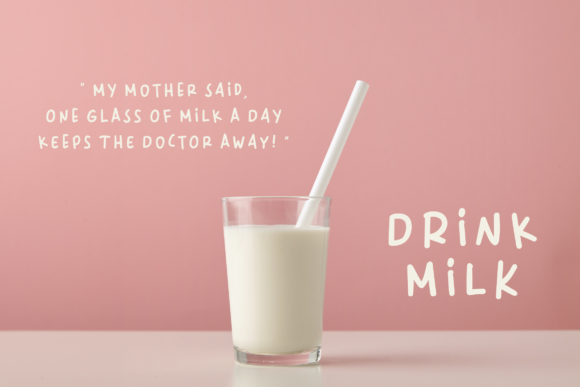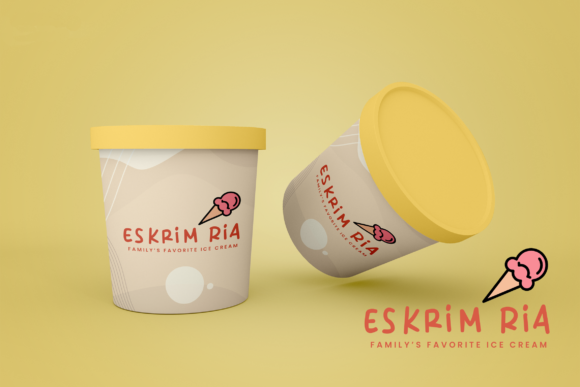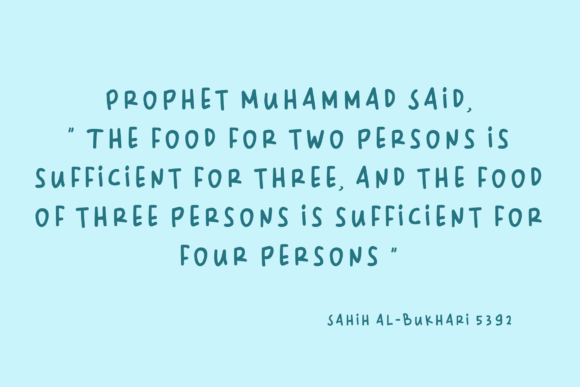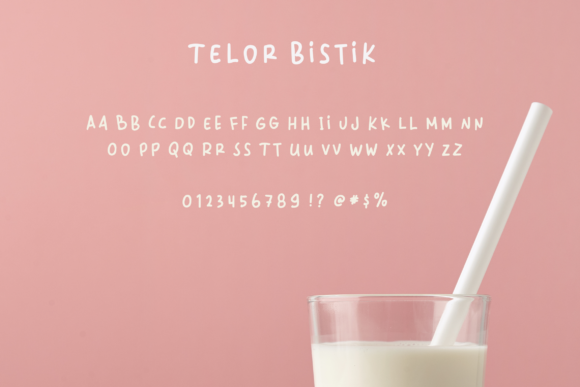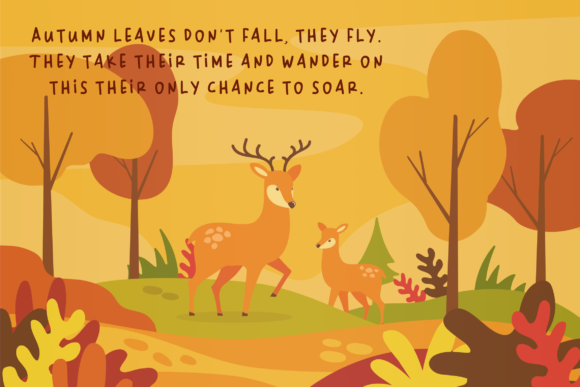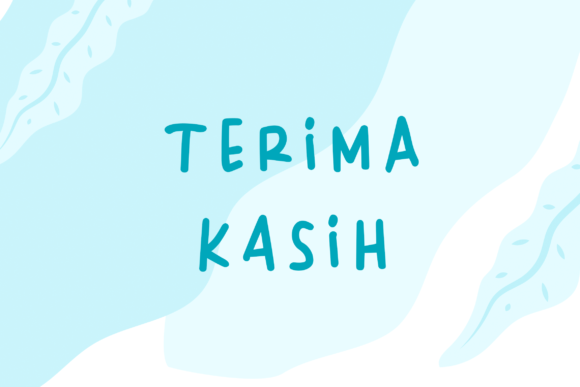
About Telor Bistik Font
Telor Bistik is a playful and unique kid’s handwriting font. It is Cute, Cool, and Cheerful. This font will give the feeling of joy and fun to all your designs and make them easily distinguishable. Have fun with this quirky font!